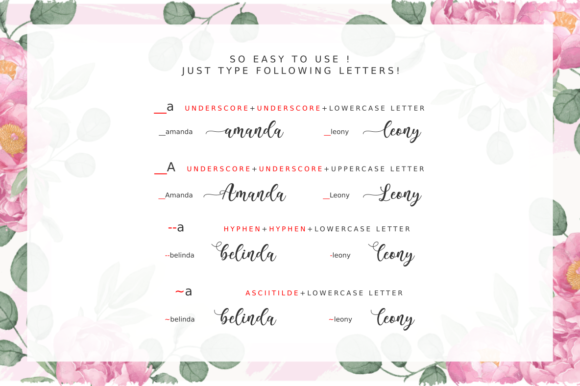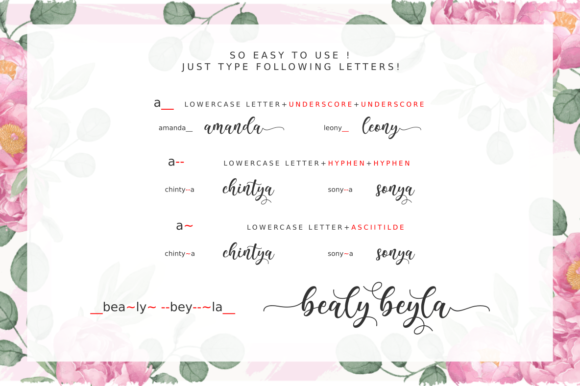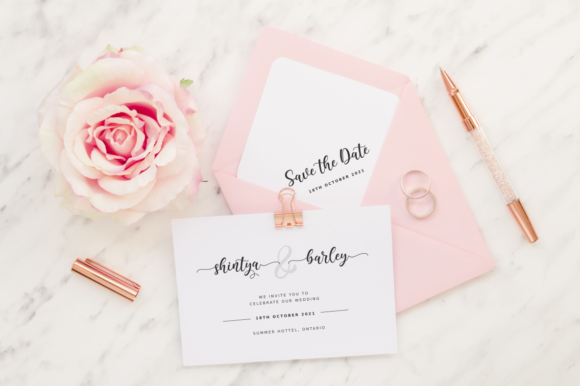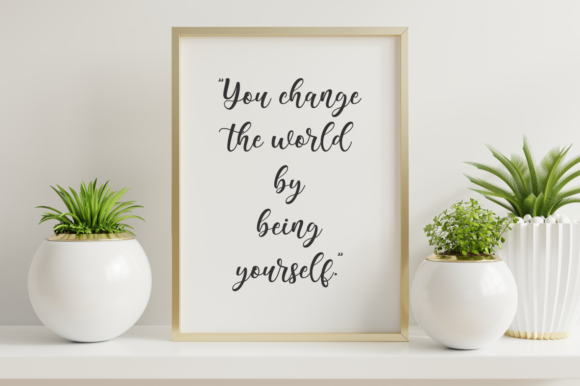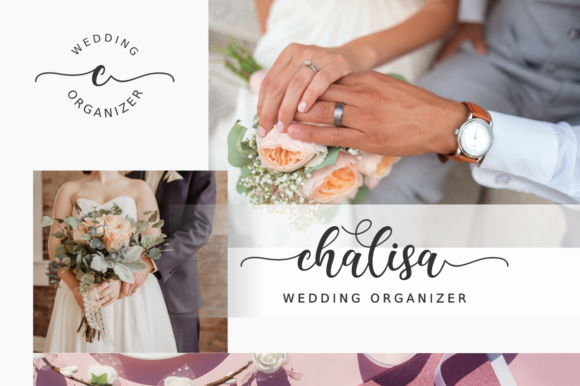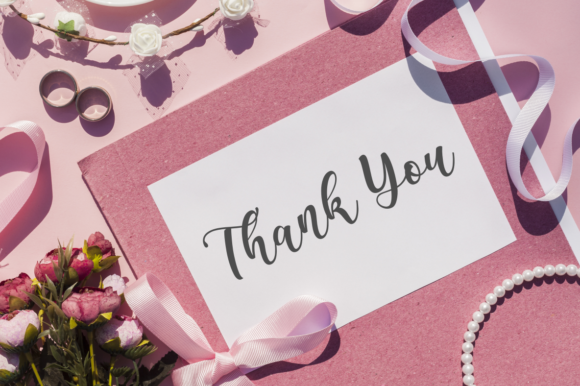
Introducing Bealy Beyla Font: Elevate Your Designs with Elegance
In the world of typography, a font can make or break a design. For designers and crafters looking for that perfect touch of elegance and sophistication, Bealy Beyla Font is an exquisite choice. This beautifully crafted handwritten font is not just a typeface; it’s an experience. With its elegant flow, stunning alternates, and user-friendly encoding, Bealy Beyla is set to transform your creative projects.
The Essence of Bealy Beyla
Bealy Beyla is an elegant and flowing handwritten font that captures the essence of sophisticated writing. Its design is characterized by a varying baseline, which adds a dynamic and organic feel to any text. The smooth lines and curves of each letter are meticulously crafted to provide a seamless reading experience while imparting a touch of luxury and refinement.
PUA Encoding for Ease of Use
One of the standout features of Bealy Beyla is its PUA (Private Use Area) encoding. This means that accessing all the glyphs and swashes is incredibly straightforward. Designers can easily navigate through the font’s extensive range of characters and decorative elements without needing specialized software or complicated workarounds. This feature makes Bealy Beyla not only beautiful but also highly practical for a wide array of design applications.
Gorgeous Glyphs and Stunning Alternates
The true beauty of Bealy Beyla lies in its details. The font comes with a rich set of glyphs and stunning alternates, allowing designers to add depth and variation to their work. Whether you’re crafting a logo, an invitation, or a website, these decorative elements can be used to create a unique visual identity that stands out. The alternates provide flexibility, enabling you to experiment with different styles and tones, ensuring your design perfectly captures the intended mood or message.
Applications of Bealy Beyla
The versatility of Bealy Beyla makes it suitable for a myriad of design projects. Here are a few ideas to get you started:
- Branding and Logos: The elegant and flowing nature of Bealy Beyla makes it perfect for creating sophisticated logos that convey luxury and quality.
- Stationery: Elevate your stationery designs with beautiful letterheads, invitations, and thank you cards that exude elegance.
- Web Design: Use Bealy Beyla to create visually appealing website headers, banners, and even entire typography-focused websites.
- Crafting and DIY Projects: For crafters, Bealy Beyla can add a professional and refined touch to product labels, packaging, and promotional materials.
Why Choose Bealy Beyla?
With so many fonts available, why choose Bealy Beyla? The answer lies in its perfect blend of aesthetics and functionality. Not only does it offer a beautiful, handcrafted design, but it also prioritizes usability with its PUA encoding. This combination makes Bealy Beyla an excellent investment for designers and crafters who seek high-quality typography to elevate their projects.
Tips for Maximizing Bealy Beyla’s Potential
To get the most out of Bealy Beyla, consider experimenting with different sizes, colors, and combinations of glyphs and alternates. Don’t be afraid to play around and see what works best for your design. Additionally, pairing Bealy Beyla with complementary fonts can create striking contrasts and add layers of interest to your work.
Bealy Beyla Font is more than just a typeface; it’s a tool for creative expression. Its elegant design, coupled with practical features like PUA encoding, makes it an invaluable asset for designers and crafters alike. Whether you’re looking to add a touch of sophistication to your branding, create stunning stationery, or simply explore new typographic possibilities, Bealy Beyla is an excellent choice. Embrace the beauty of Bealy Beyla and watch your designs transform with elegance and style.